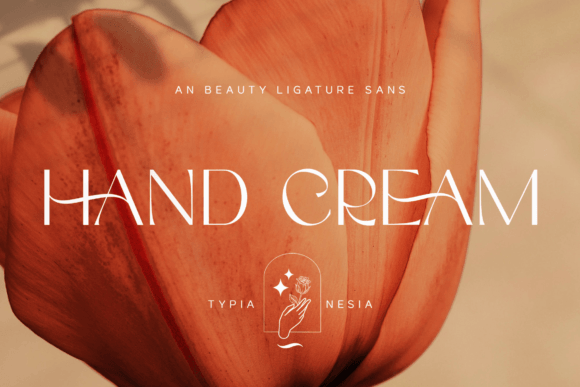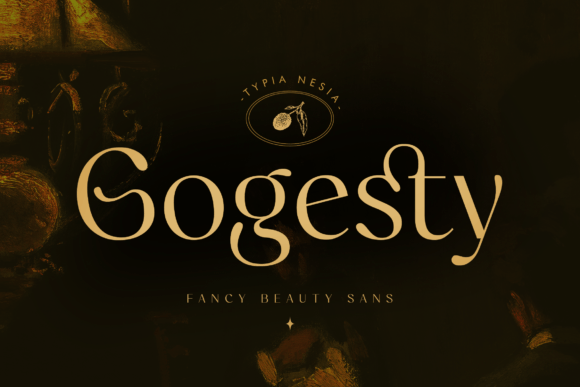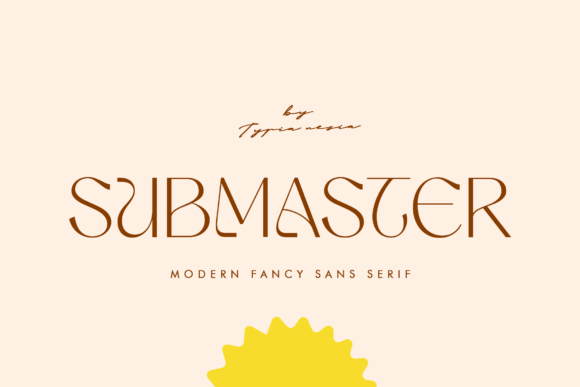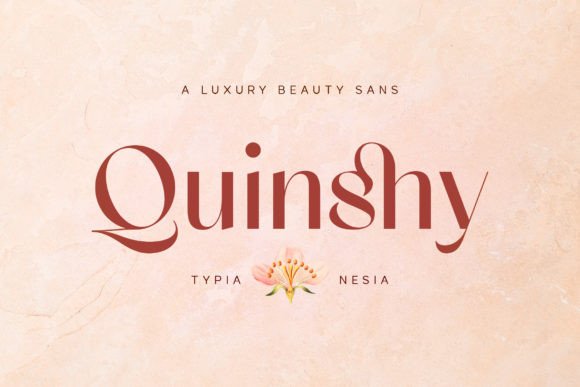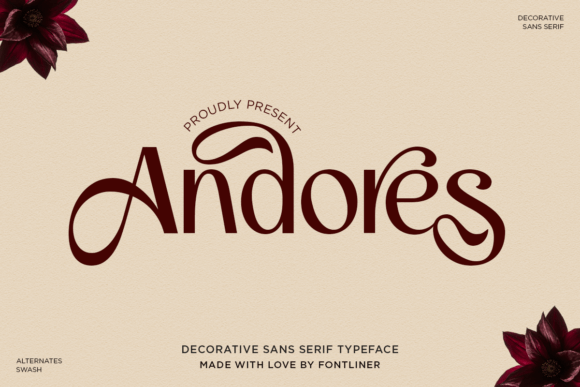
Less Is More: 18 Modern Minimalist Fonts for Clean 2026 Layouts
Minimal does not mean boring, but it does mean every detail has to earn its place. Here is my verdict on 18 modern minimalist fonts for 2026, starting with the two I would buy first, then the full lineup of clean sans faces, pared-back serifs and one soft slab. For the basics, here is the rise of the sans-serif.
Our verdict on these modern minimalist fonts
If you are short on time, start here. These two cover most jobs between them.
- Our top pick: Carmila, for a clean editorial structure that works across a whole brand system
- Best value: Tofes, a simple modern serif that reads clearly from headline down to caption
The minimalist sans
Clean, friendly and quiet, with just enough character from their alternates. Strong bases for body copy and logos.
Hand Cream
Hand Cream is a modern sans serif with soft, gentle shapes and a set of alternates and ligatures. The rounded, friendly forms read as warm but still minimal, which suits beauty branding, packaging, and clean logos. The extras give a wordmark a little personality without adding clutter. Pair it with a flowing script for contrast, or keep it solo for a quiet, modern look. In a muted palette with open tracking, Hand Cream reads as soft and approachable, a comfortable sans for a brand that wants warmth alongside its restraint.
Gogesty
Gogesty is a clean, classy sans serif with alternates and ligatures that let you tune a layout. The shapes are simple and balanced, which makes it an easy base for minimalist branding, body copy, and modern logos. It reads clearly across sizes, so it works for both headlines and small print. Pair it with a flowing script or a high-contrast serif when you want contrast, or keep it solo for restraint. In a muted palette with open spacing, Gogesty gives a design a tidy, modern feel without drawing attention away from the content.
Submaster
Submaster is a modern sans serif with a clean, expressive character and a set of alternates and ligatures. The shapes lean minimal but carry a little personality, which suits beauty and lifestyle branding, packaging, and logos. The extras help fine-tune a name without adding noise. Pair it with a flowing script for contrast, or keep it solo for a pared-back look. In a muted palette with open tracking, Submaster reads as clean and modern with a soft edge, a flexible sans for a brand that wants simplicity with some warmth.
Quinshy
Quinshy is a modern sans serif with a soft, polished character and a set of alternates and ligatures for tuning a layout. The shapes are clean and gentle, which suits beauty branding, packaging, and minimalist logos. The extras give a wordmark a little finish without clutter. Pair it with a flowing script or a refined serif for contrast, or keep it solo for restraint. In a muted palette with open spacing, Quinshy reads as soft and modern, a comfortable sans for a brand that wants a pared-back look with a hint of romance.
Andores
Andores is a decorative sans serif with graceful curves and a few stylish swashes, so it carries more personality than a plain sans. The flowing touches give it a soft, modern luxury feel while keeping the clean base of a sans. It suits beauty branding, packaging, and logos that want warmth with restraint. Reserve the swashes for headlines where they have room, and pair it with a plainer face for body copy. In a muted palette with open tracking, Andores reads as soft and modern, a sans with a gentle decorative edge.
Clean modern serifs
Pared-back serifs that read current and uncluttered, flexible across headlines and supporting text.
Classy
Classy is a minimalist serif with clean lines and a controlled stroke contrast, built to read as polished without ornament. Its restraint is the appeal, which makes it a comfortable base for modern luxury branding, packaging, and editorial layouts. The shapes hold up across a useful size range, so it works for both headlines and shorter supporting text. Pair it with a flowing script when you want contrast, or let it stand alone for a quieter look. In a muted palette with open tracking, it reads as simple and grown-up.
Galste
Galste is a modern serif with a light floral influence in its curves and a graceful, refined structure. It reads as clean and a little soft, which suits beauty branding, stationery, and minimalist packaging. The ligatures give certain letter pairs a smooth, considered finish without crowding the design. Pair it with a plain sans for body copy and keep Galste for headers, where its detailing reads clearly. In a muted palette with open spacing, it gives a layout a tidy, gently romantic feel that sits well in a modern, pared-back design.
Tofes
Tofes is a modern serif with a clean, pared-back structure that suits a wide range of projects. The shapes are simple and balanced, which makes it an easy base for minimalist branding, packaging, and editorial text. It reads clearly from headline down to caption sizes, so it’s flexible across a layout. Pair it with a flowing script for contrast, or keep it solo for a quiet, modern look. In a muted palette with a little open tracking, Tofes gives a design a calm, considered feel without competing for attention.